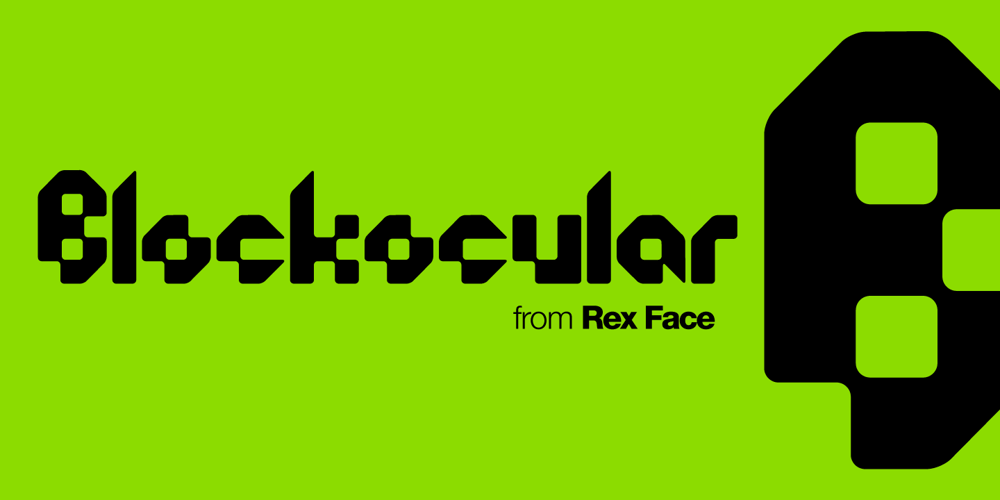
Blockocular Font Family was designed by Tim Rex and published by Rex Face. Blockocular contains 1 styles and family package options. Blockocular is a playful, versatile display font. Its name describes the way sets of blocks form the characters, creating letter forms that are pleasing to the eye. Blockocular is great for headlines, signage, logos, packaging and more. It�s bold and fun and will inject interest into your design piece.